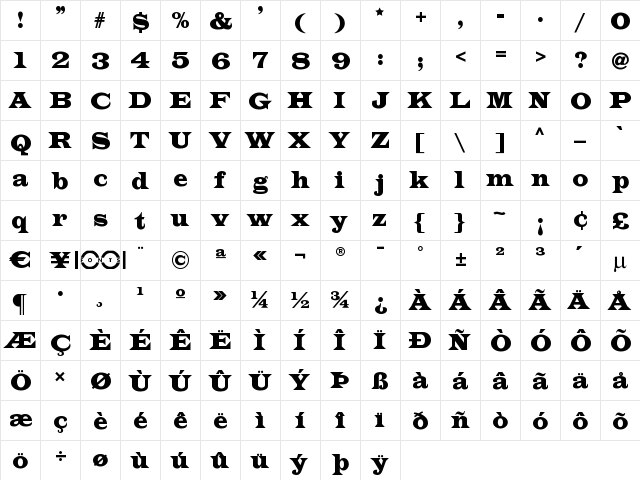
Indubitably NF Regular Font Preview
Indubitably NF Regular
Indubitably NF Regular Font Details
Design Context for Indubitably NF Typeface
Indubitably NF takes a measured approach to typography — its balanced proportions and neutral character make it a reliable workhorse for both digital and print work.